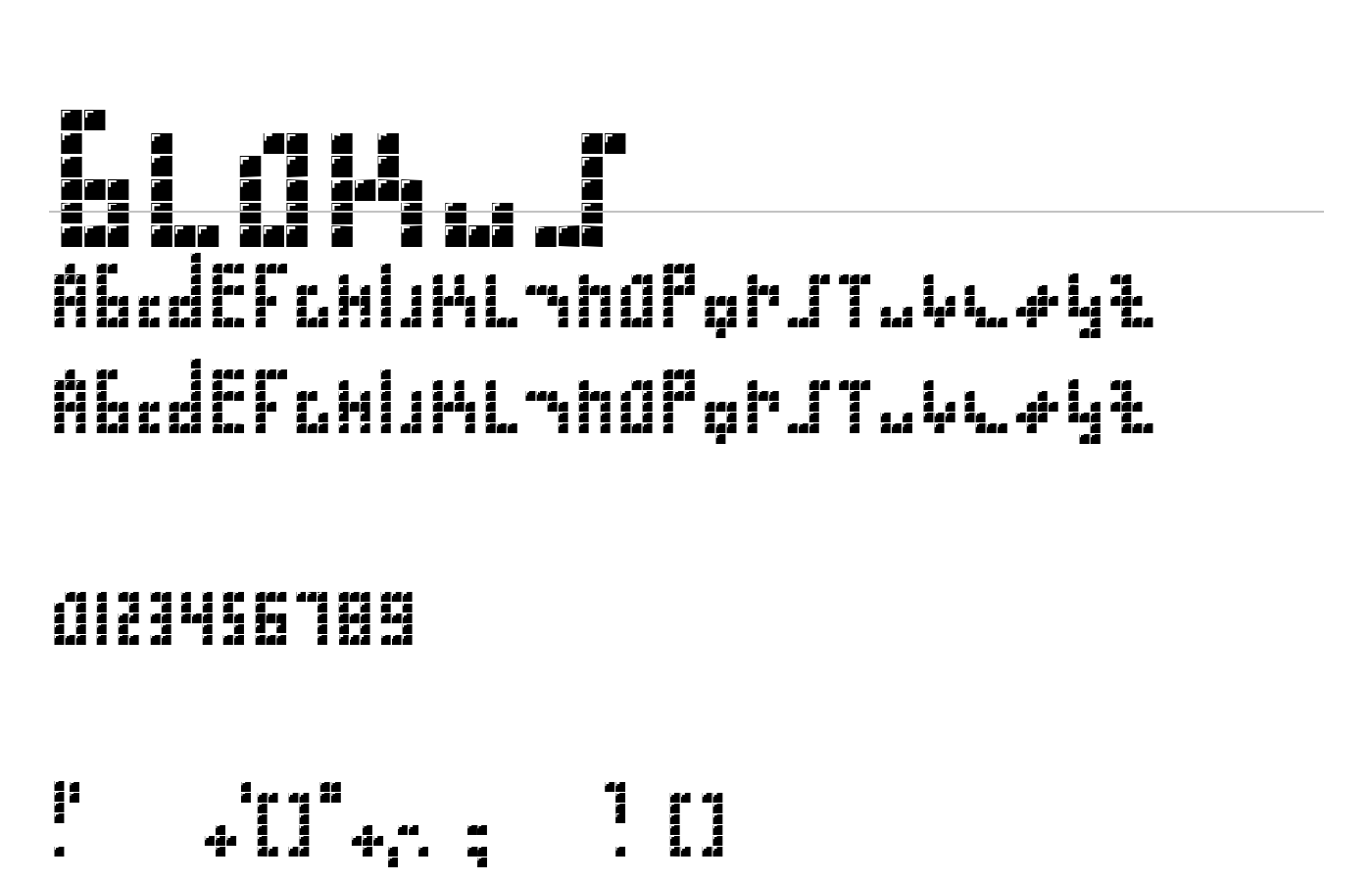
Blokus is a unique pixelated sans serif font with a blocky, geometric style that evokes a retro video game or digital screen aesthetic. Its evenly spaced, monospaced letterforms have a strong, rigid structure that makes it ideal for creative tech, gaming, or futuristic branding. This font stands out best in headlines, logos, or digital displays where a bold, nostalgic yet modern feel is desired.
Blokus Font
About Blokus Font
| Font family | Blokus Font |
| Designer | Zoya Feldman |